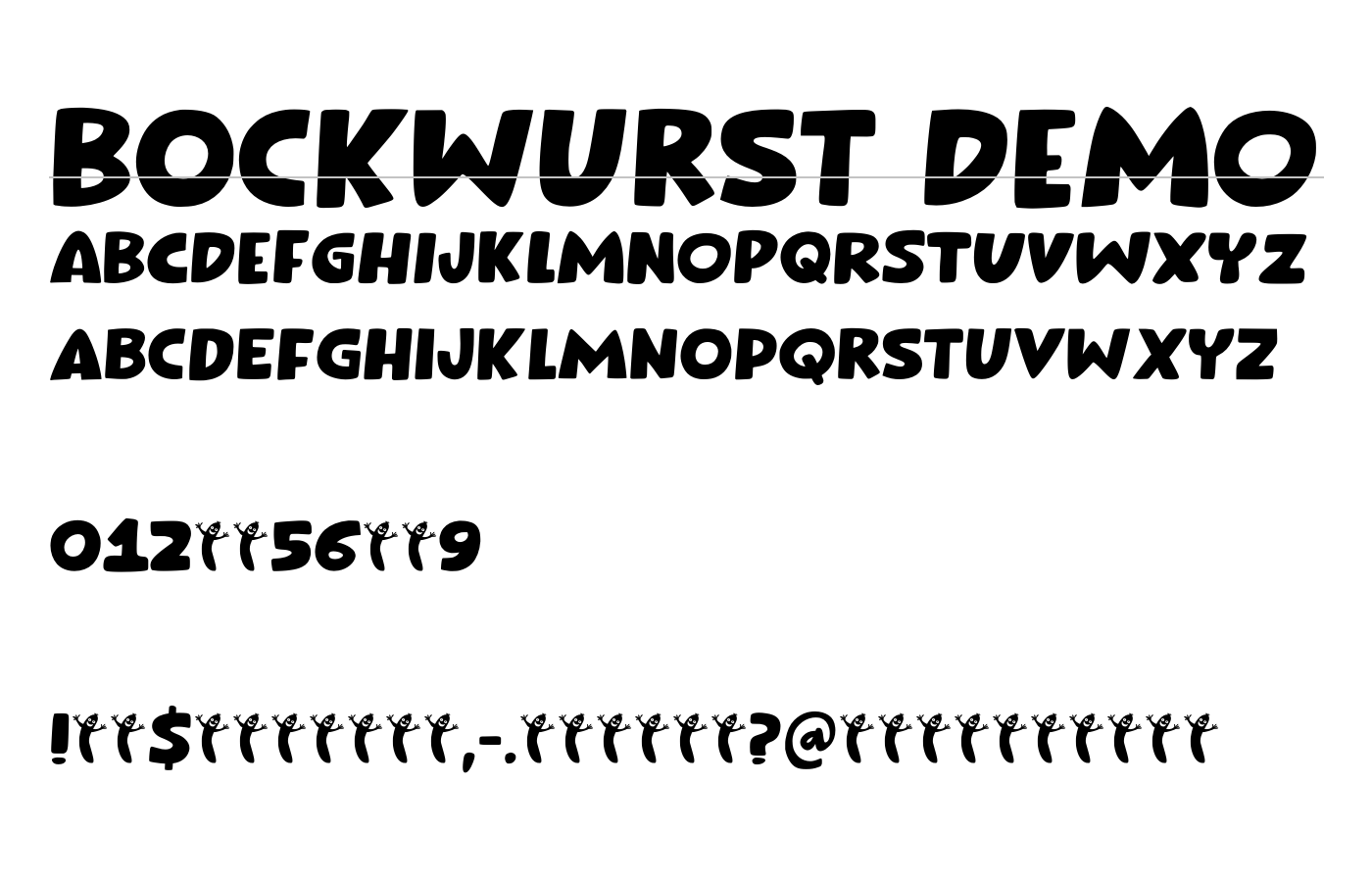
Bockwurst DEMO is a bold, playful sans serif font with rounded, chunky letterforms that convey a friendly and approachable vibe. Its wide, uniform strokes and slightly irregular shapes give it a hand-drawn, casual feel, ideal for fun branding, children’s materials, and informal headlines. This font works best in settings that need a cheerful and energetic tone, standing out well in logos, posters, and creative web designs.
Bockwurst DEMO Font
About Bockwurst DEMO Font